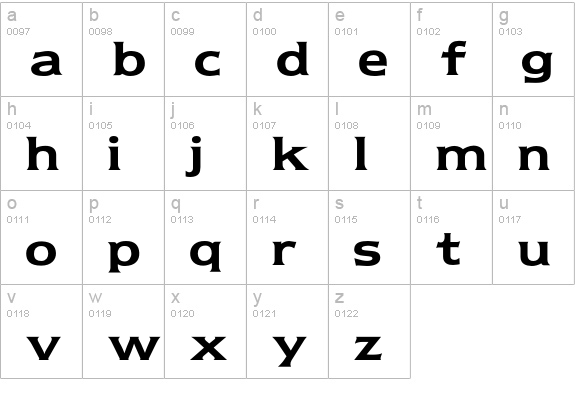
Introducing NewtextDemi font, a versatile typeface that strikes the perfect balance between modern sophistication and timeless elegance. With its bold and commanding presence, NewtextDemi exudes confidence and authority, making it ideal for a wide range of design projects. This font features strong, well-defined letterforms that display a sense of power and stability, while also maintaining a touch of refinement and class. Whether used for headlines, logos, branding, or editorial design, NewtextDemi delivers a bold statement that captures attention and commands respect. Best of all, NewtextDemi font is available for free download at FontsMarket.com, making it easily accessible to designers, creatives, and enthusiasts looking to add a touch of bold sophistication to their projects. Don't miss out on this opportunity to elevate your designs with the impressive and striking NewtextDemi font.